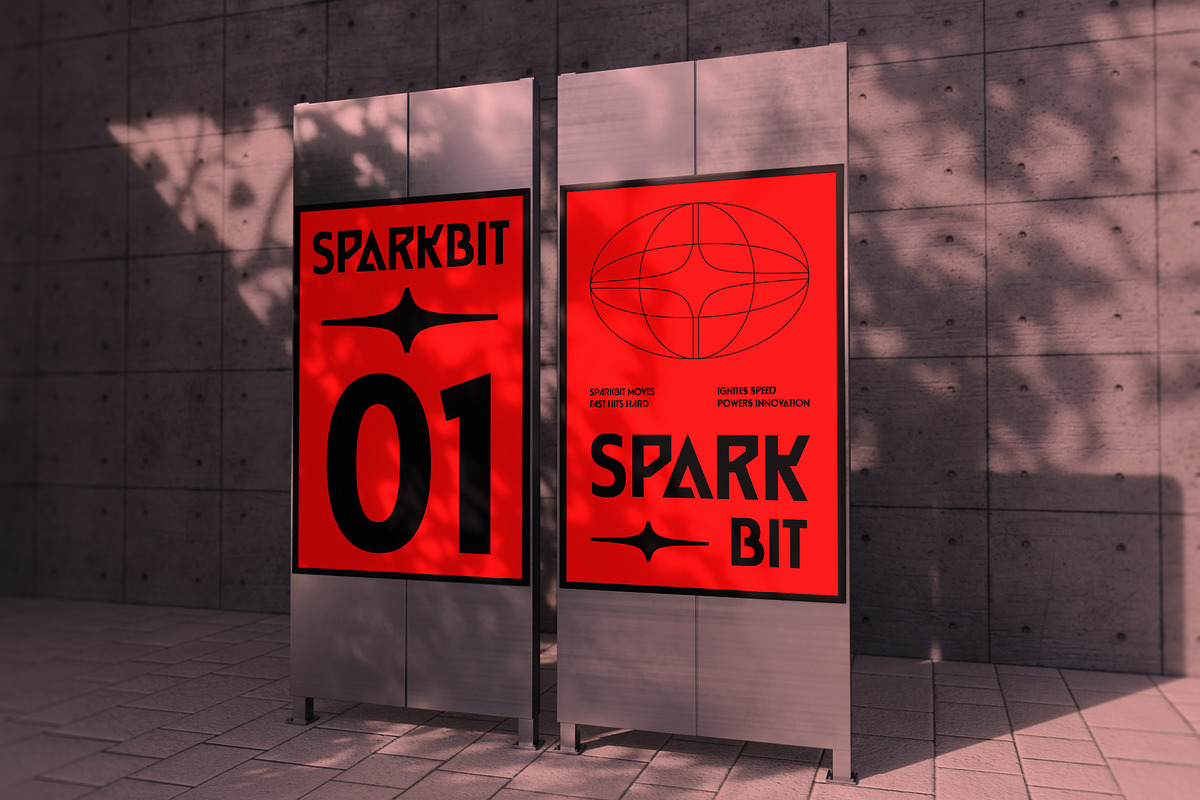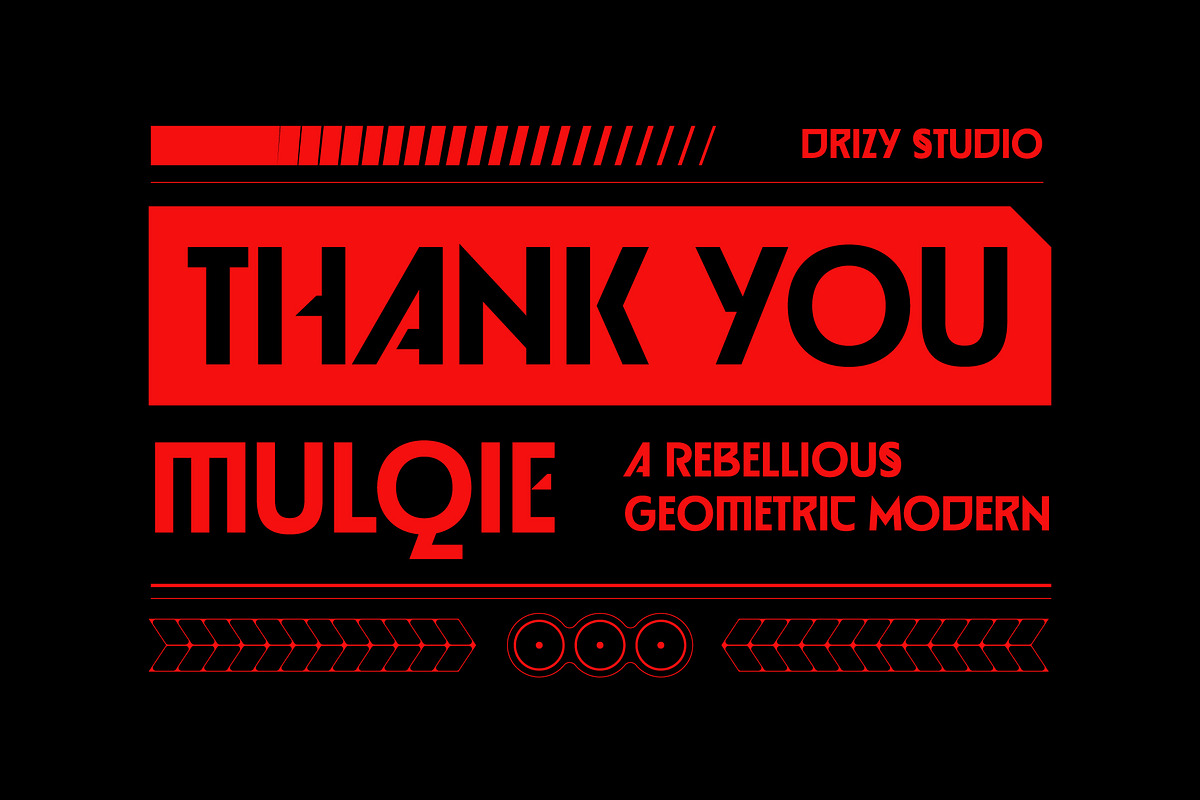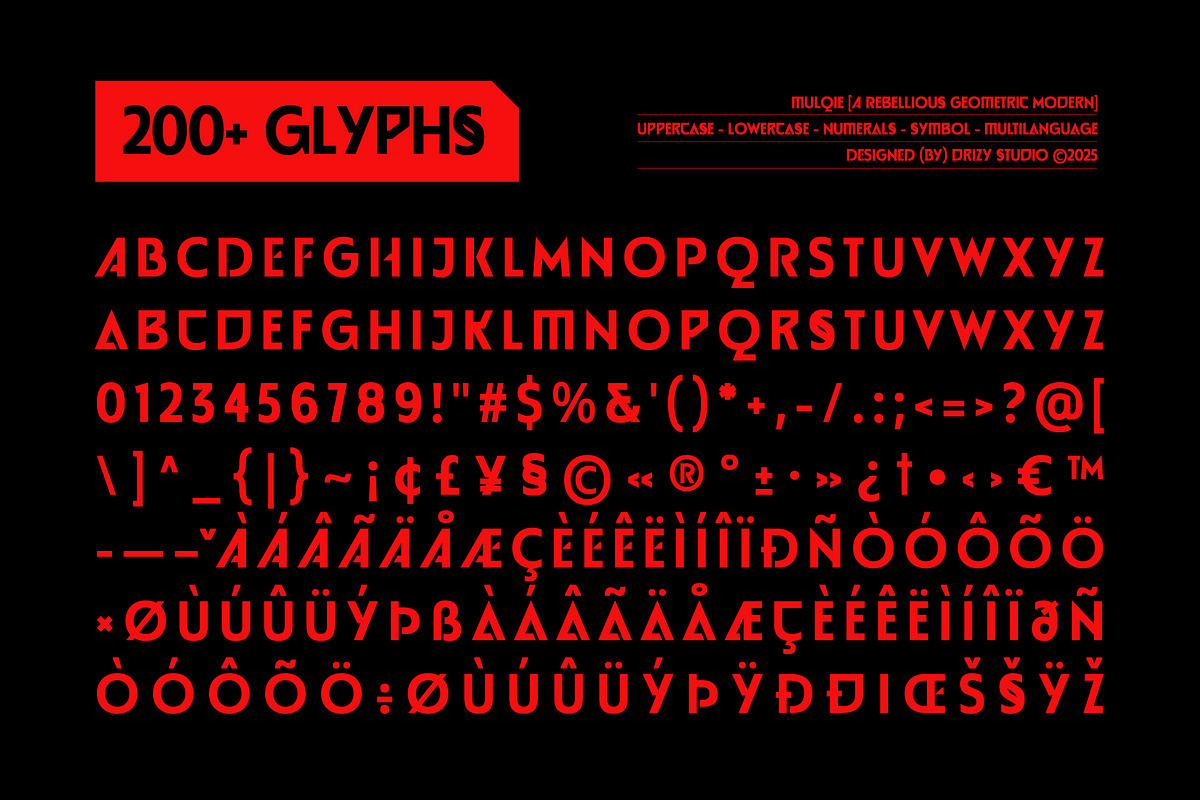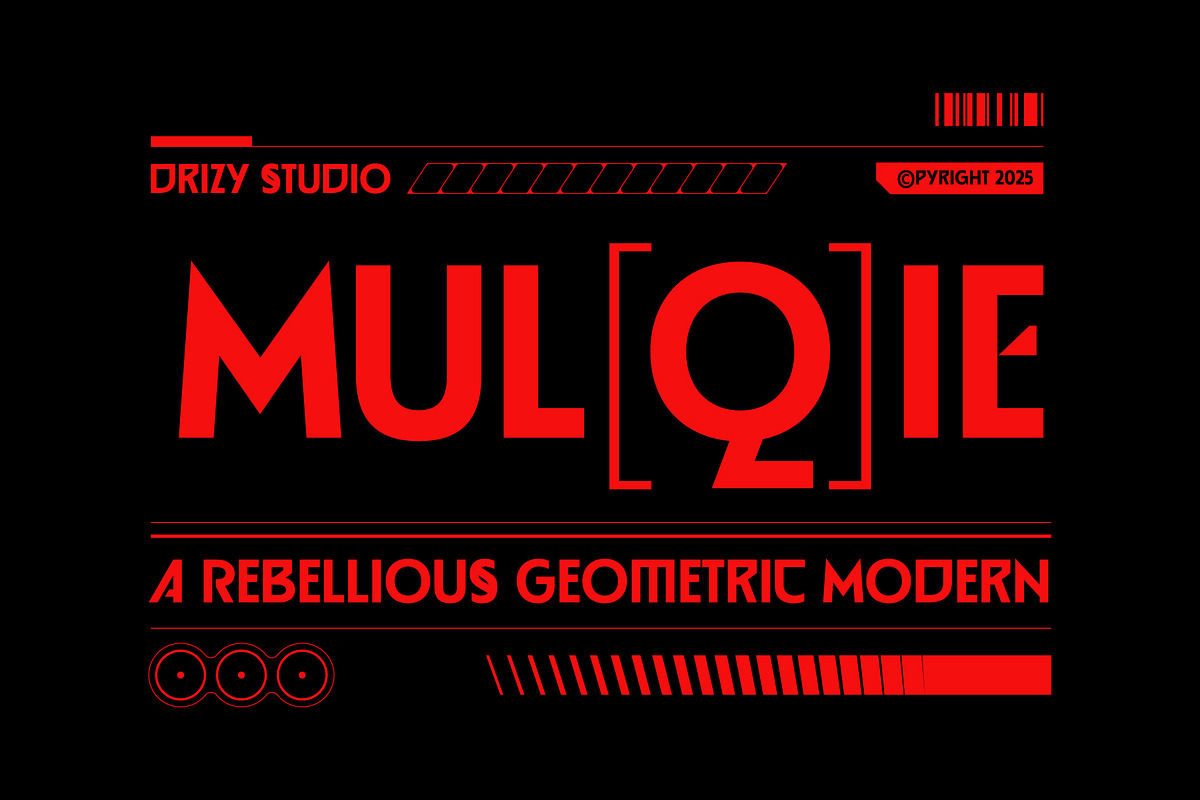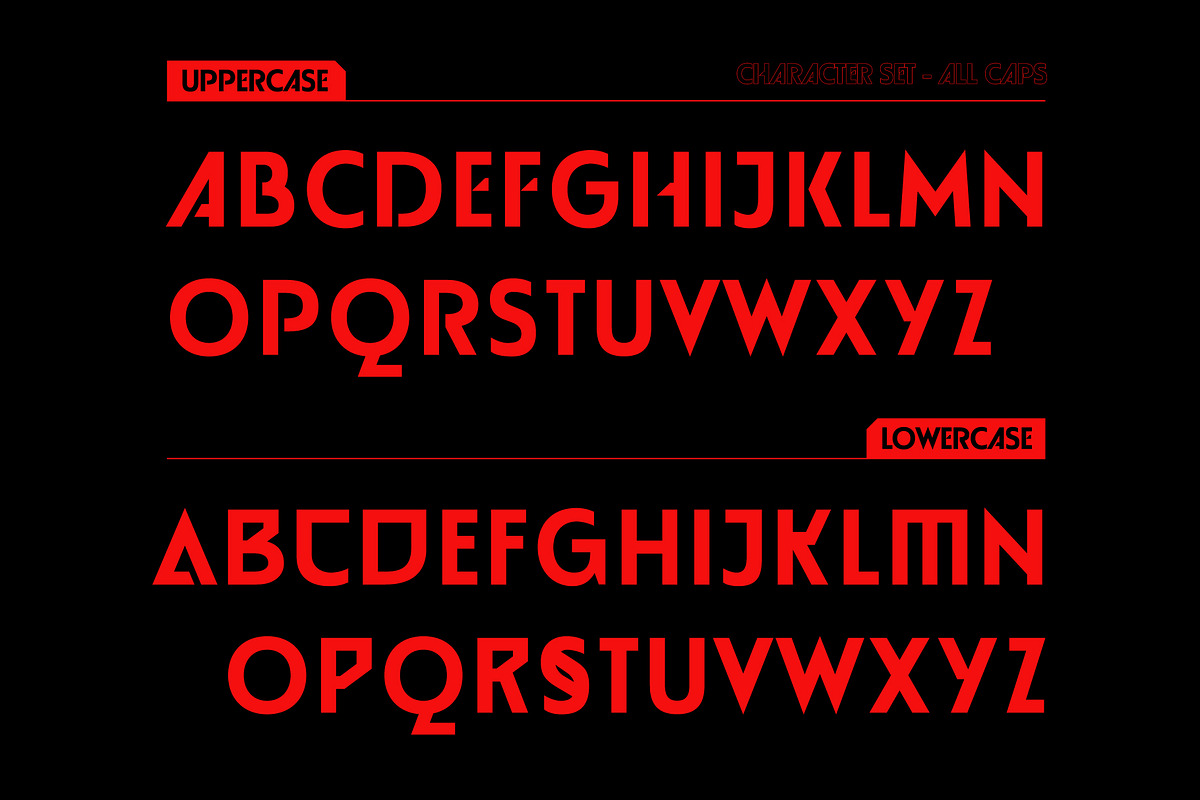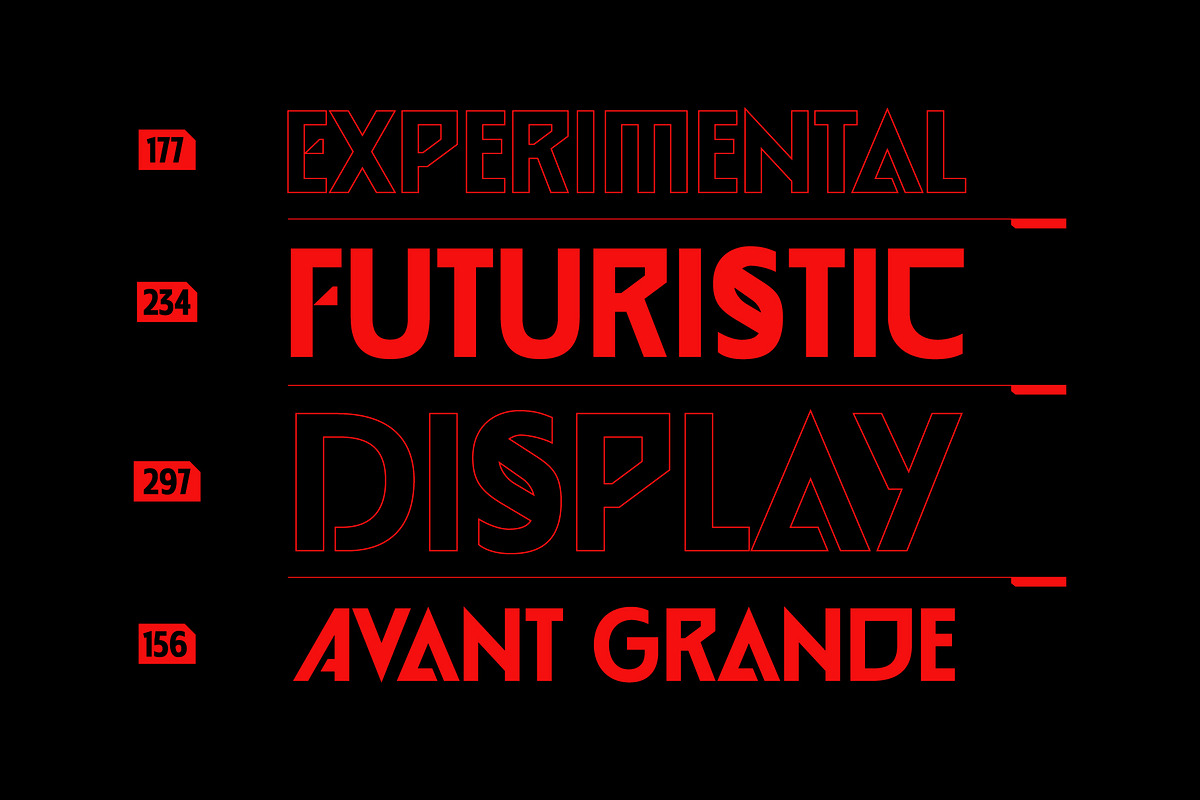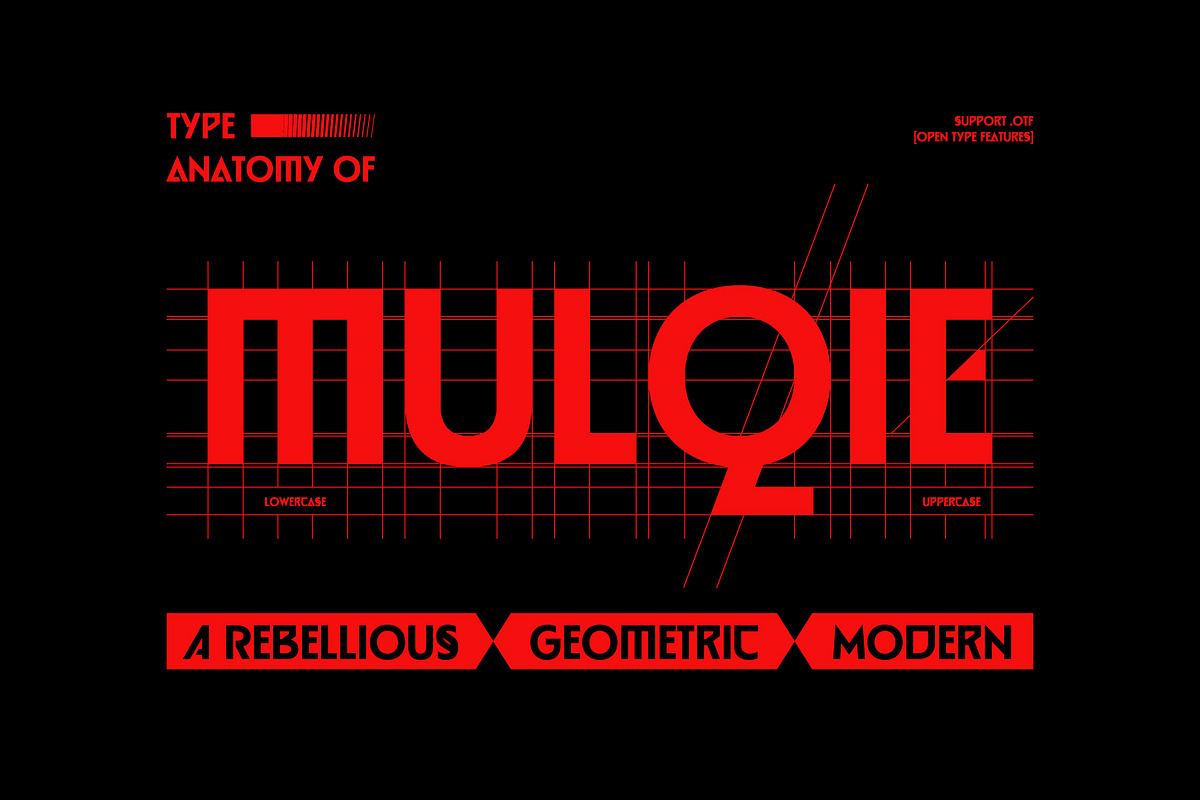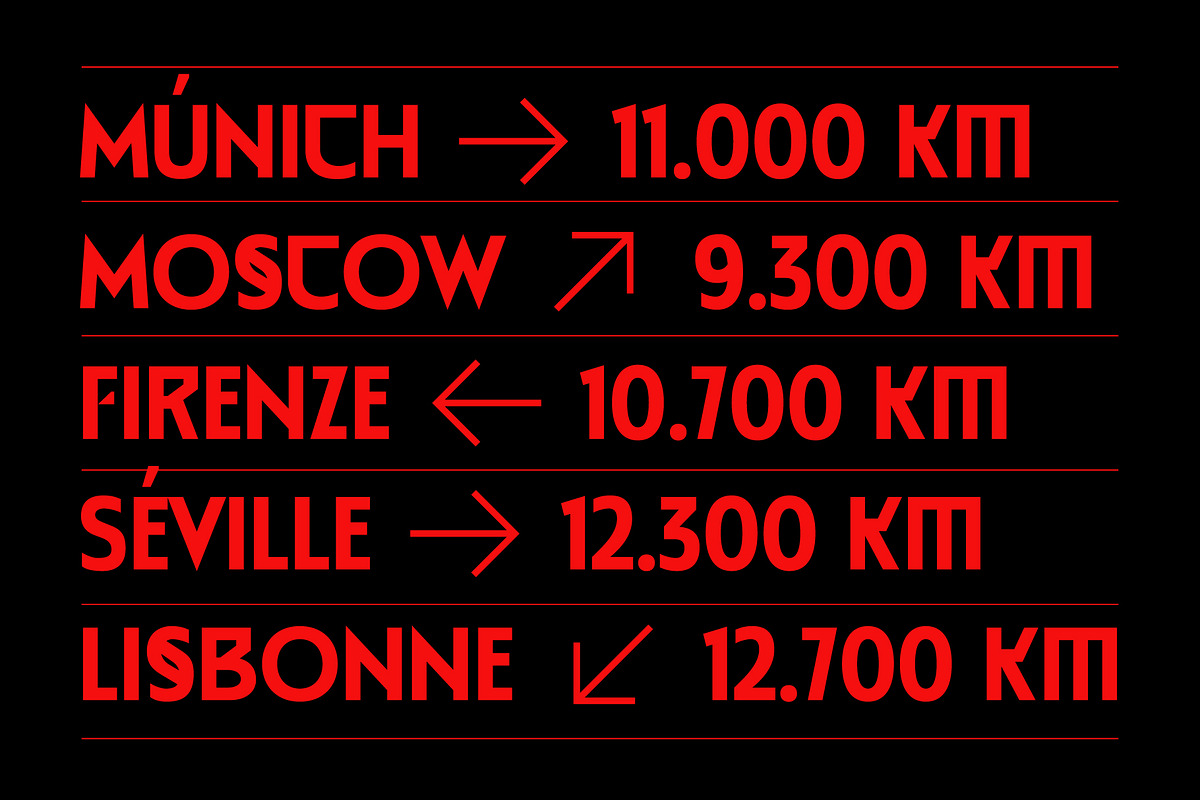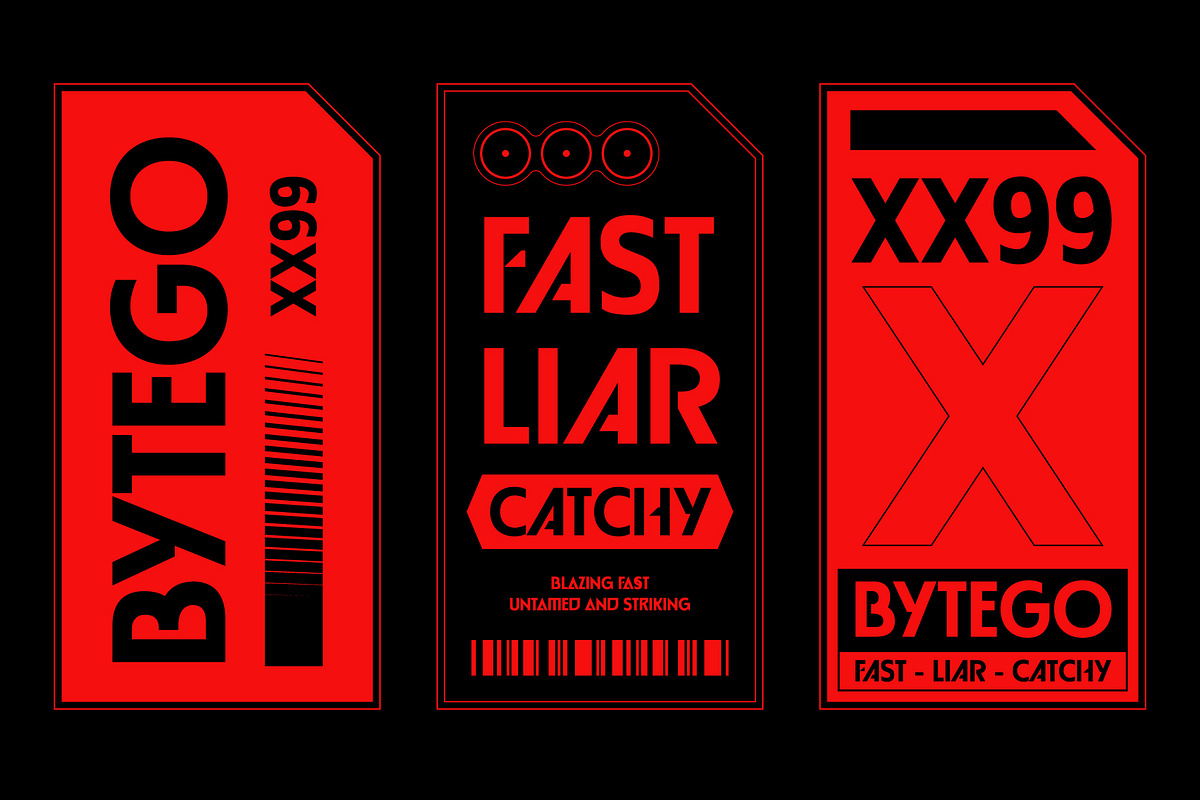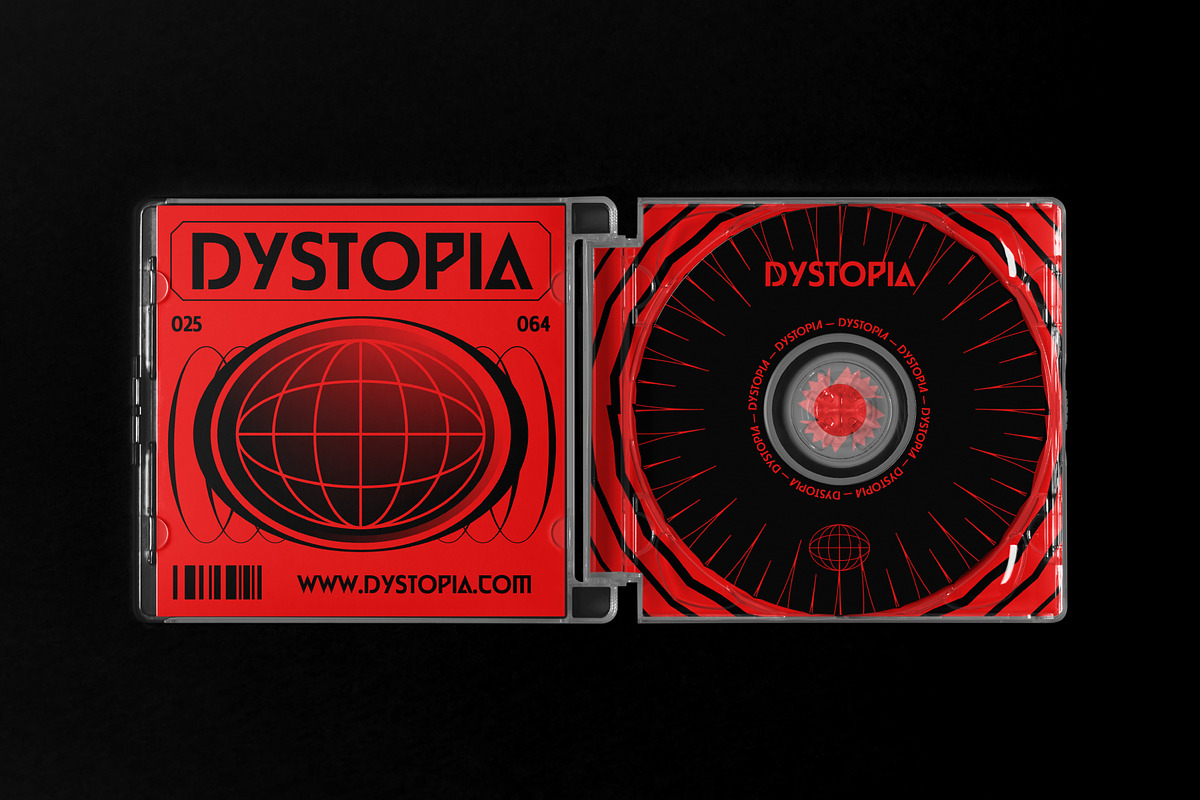
Mulqie – Rebellious Geometric Modern
Mulqie – Rebellious Geometric Modern Font
Unleash the bold spirit of Mulqie – Rebellious Geometric Modern Font inspired by the precision and innovation of Geometric Germany typography. With its sharp angles, clean lines, and structured forms, Mulqie strikes the perfect balance between order and defiance. Designed for those who dare to stand out, this font brings a contemporary edge to digital projects. Whether you’re crafting a cutting edge logo or a striking headline, Mulqie delivers a powerful visual impact with its sleek, high-contrast letterforms. Elevate your design with the modern, structured, and rebellious character of Mulqie where geometric precision meets unshakable attitude.
Elevate and explore the design possibilities with this Geometric Germany Font!